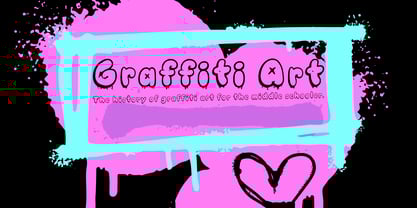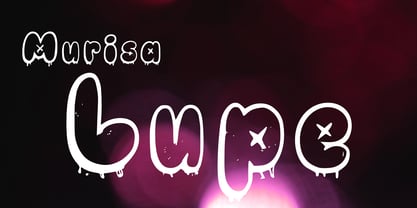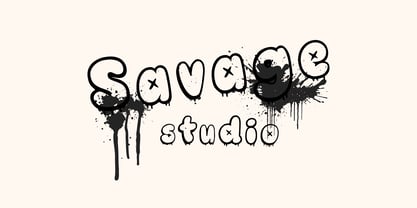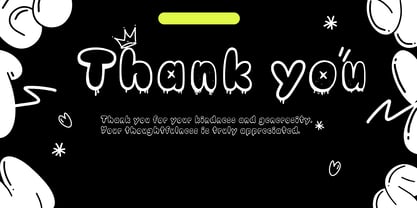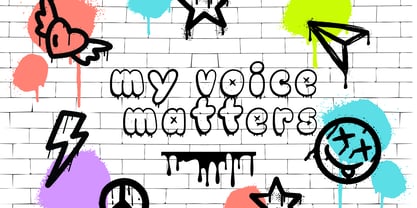
Murisa Lupe
by Murisa Studio
The Murisa Lupe Font Family was designed by Lili Sadili and published by Murisa Studio. Murisa Lupe contains 1 styles.
🎃 Murisa Lupe — Where Mischief Meets Masterpiece Step into the eerie elegance of Murisa Lupe, a font that drips with personality—literally. Each character oozes with a gooey, melting charm, conjuring visions of haunted halls, mischievous spirits, and playful chaos. But don’t be fooled by its spooky silhouette—this typeface is a work of art. 🕸️ Boldly Unconventional Murisa Lupe isn’t just a font—it’s a statement. With its stylized lowercase letters and striking uppercase forms encased in circular outlines marked by mysterious crosses, it evokes a sense of curiosity and rebellion. Perfect for designs that dare to be different. 🧪 Crafted for Creators Whether you're designing for Halloween, edgy streetwear, underground music posters, or avant-garde branding, Murisa Lupe delivers an unforgettable visual punch. It’s the kind of font that turns heads, sparks conversation, and leaves a lasting impression. 💀 A Collector’s Treasure Murisa Lupe is not for the faint of heart. It’s for those who crave originality, who see typography as an extension of identity. Owning this font means owning a piece of visual storytelling that’s as rare as it is powerful
Murisa Lupe